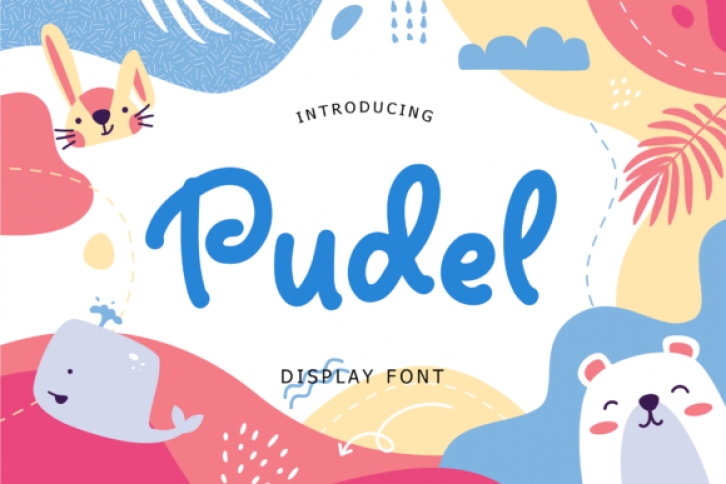
Pudel is a cute display font. It embodies fun, quirkiness and authenticity and it is perfect for branding projects, logos, book covers, social media posts, advertisements, and more!